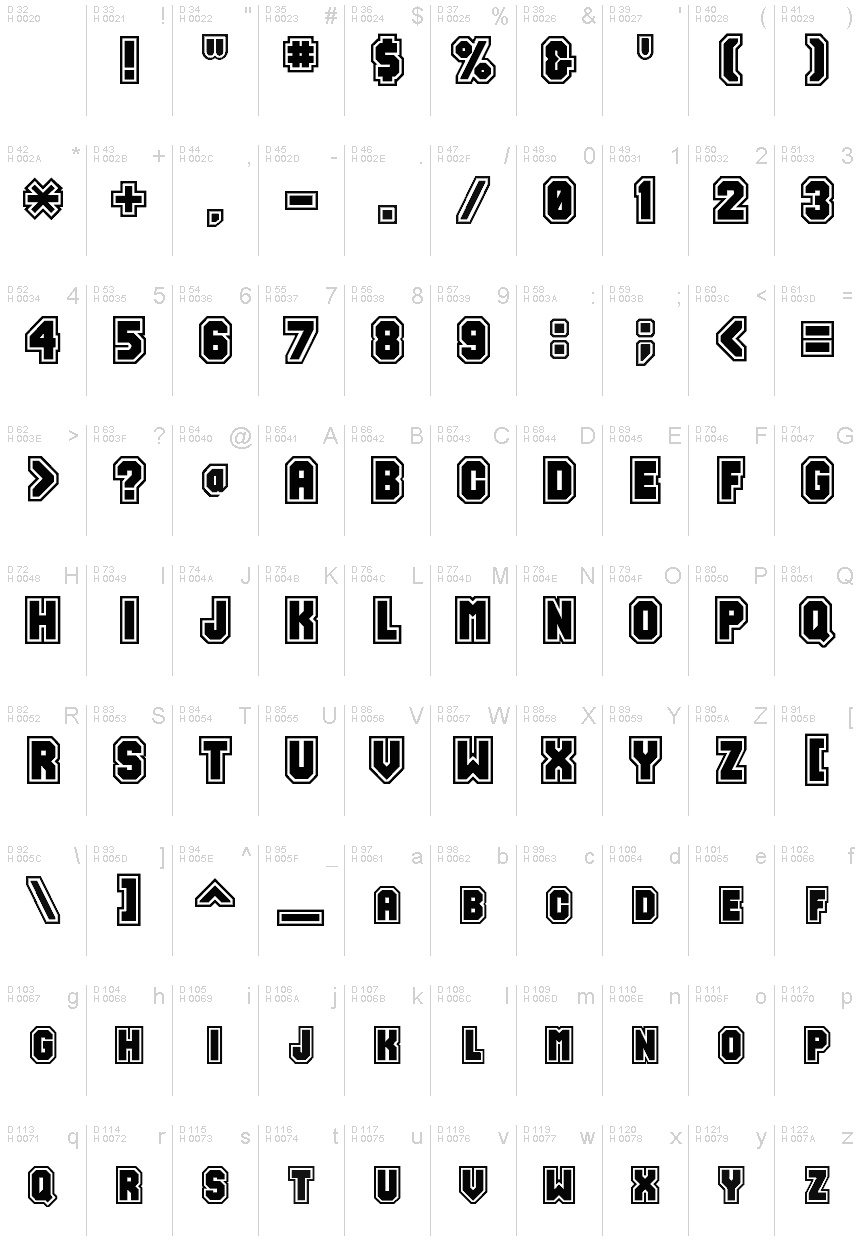
Varsity, designed by James L. DeVries, is a quintessential old school display font that exudes strength and tradition. Its extra-bold weight commands attention, making it an impeccable choice for projects that require a touch of nostalgia paired with a robust presence. The chunky letterforms hark back to an era of classic sports apparel and collegiate insignia, imbuing any design with a sense of heritage and time-honored style.
The boldness of Varsity lends itself perfectly to headlines, logos, and posters where impact is paramount. Its aesthetic appeal lies in the balance of simplicity and distinctiveness, offering clarity even when scaled up for maximum visibility. Whether used for athletic branding or evoking vintage academia vibes in your creative endeavors, Varsity stands out as a font that marries the retro with the contemporary seamlessly.